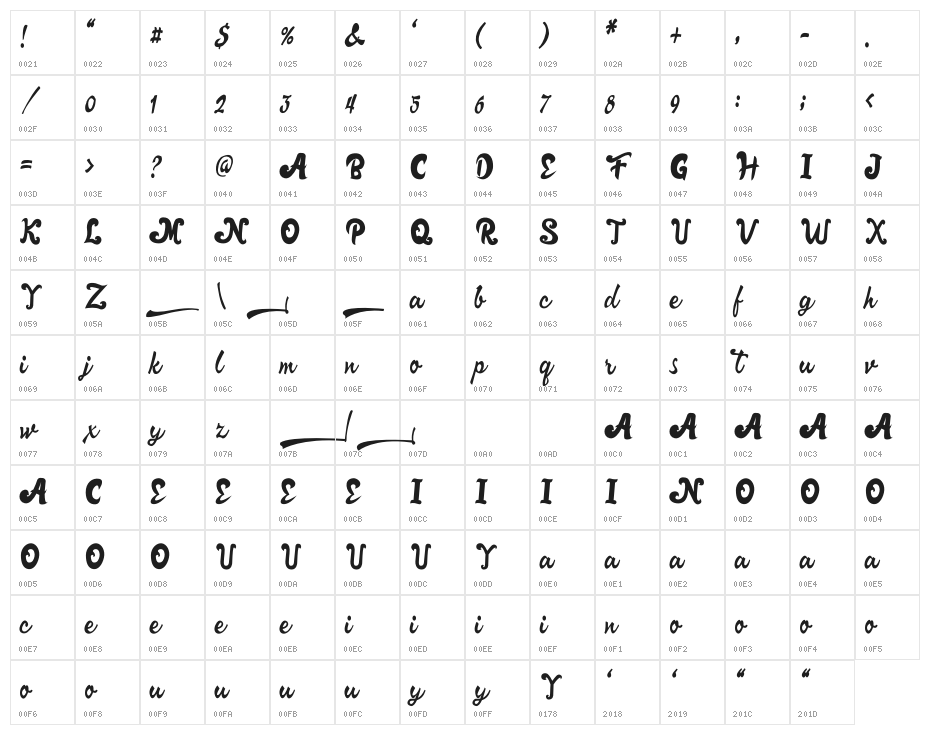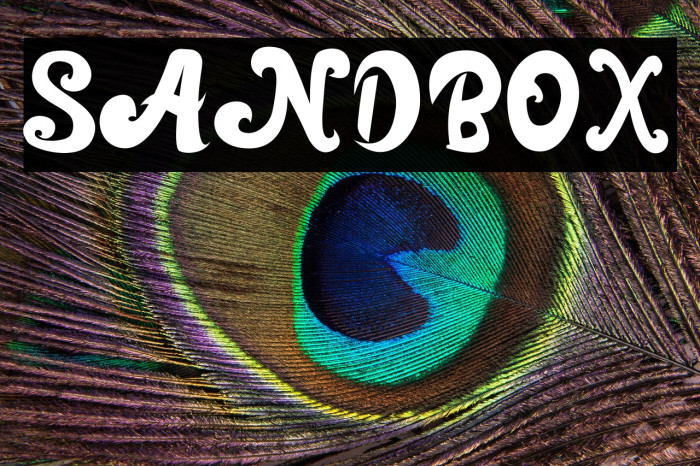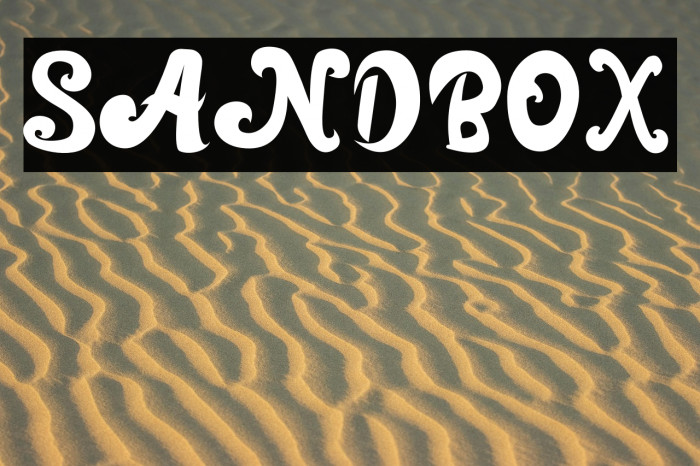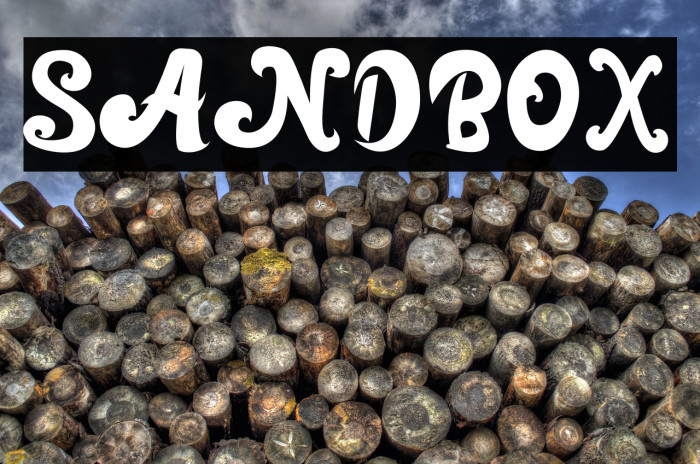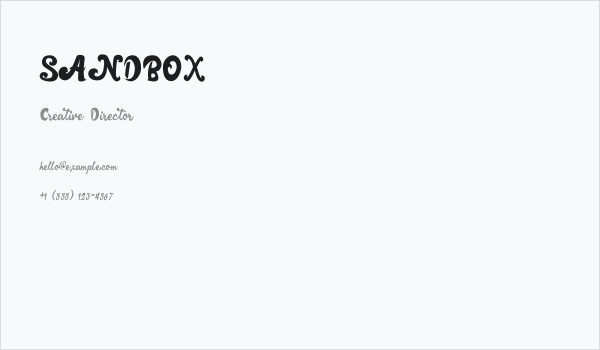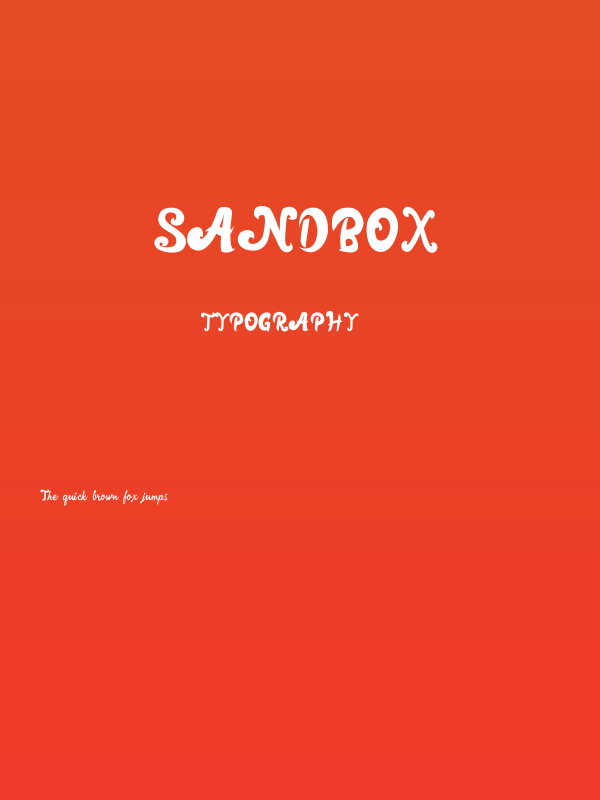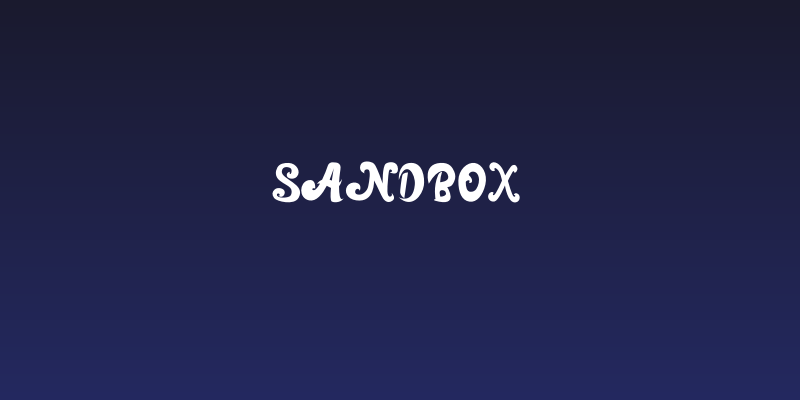
SANDBOX Font
SANDBOX Description
This font features a bold and expressive script style with a flowing, cursive design. The uppercase letters are characterized by their dramatic flourishes and loops, while the lowercase letters maintain a consistent, elegant flow. The numerals are distinct and maintain the same decorative style, ensuring readability while adding a touch of sophistication. The special characters are well-integrated, matching the overall aesthetic of the font. This font's bold strokes and high contrast make it stand out, perfect for capturing attention.
| Use Case | Headlines, Logos, Invitations |
| Proposed Projects | Ideal for branding, invitations, greeting cards, and decorative headlines. |